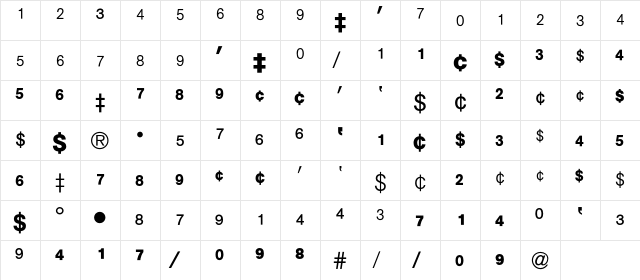
AG Buch Fractions BQ Regular Font Preview
AG Buch Fractions BQ Regular
Design Context for AG Buch Fractions BQ Typeface
AG Buch Fractions BQ offers clean, dependable letterforms without strong stylistic allegiance, making it a practical choice for designers who need flexibility.
Pro Tip: Pair AG Buch Fractions BQ with a font of contrasting weight or personality to build a more expressive typographic hierarchy.